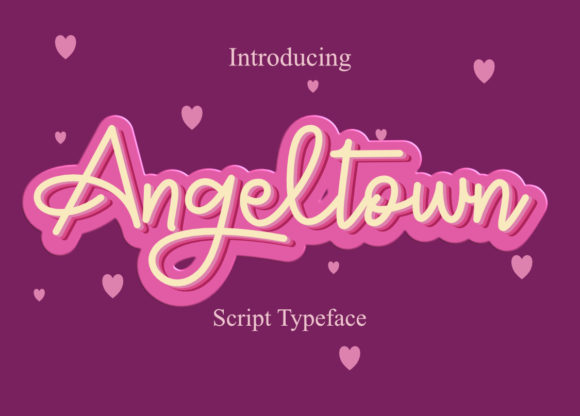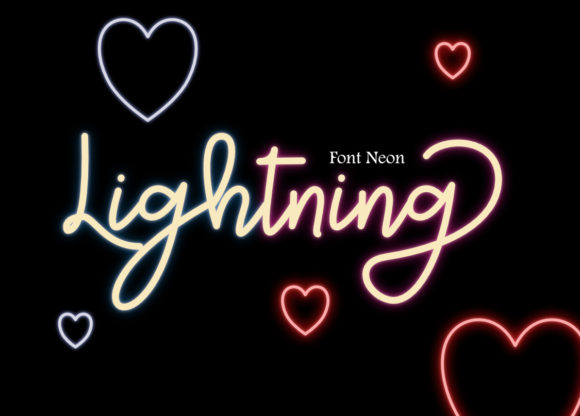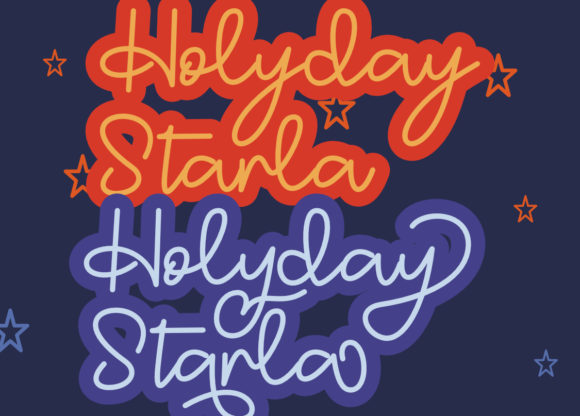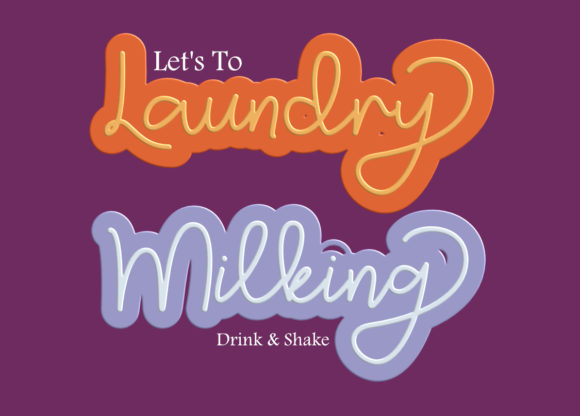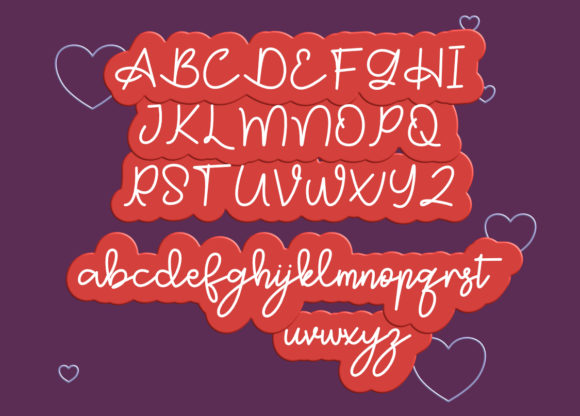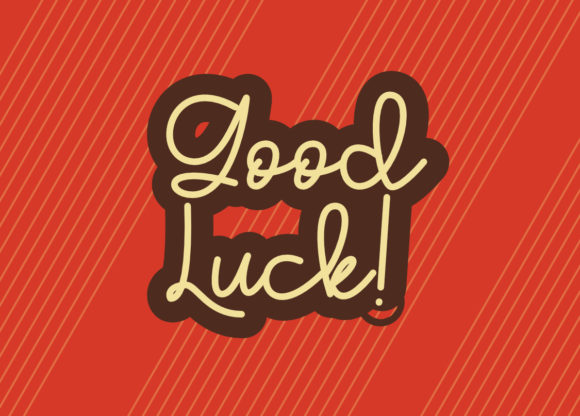
Angeltown Font
About Angeltown Font
Angeltown is a cute and casual handwritten font with an incredibly friendly feel. It will elevate a wide range of design projects to the highest level, be it branding, headings, wedding designs, invitations, signatures, logos, labels, and much more!